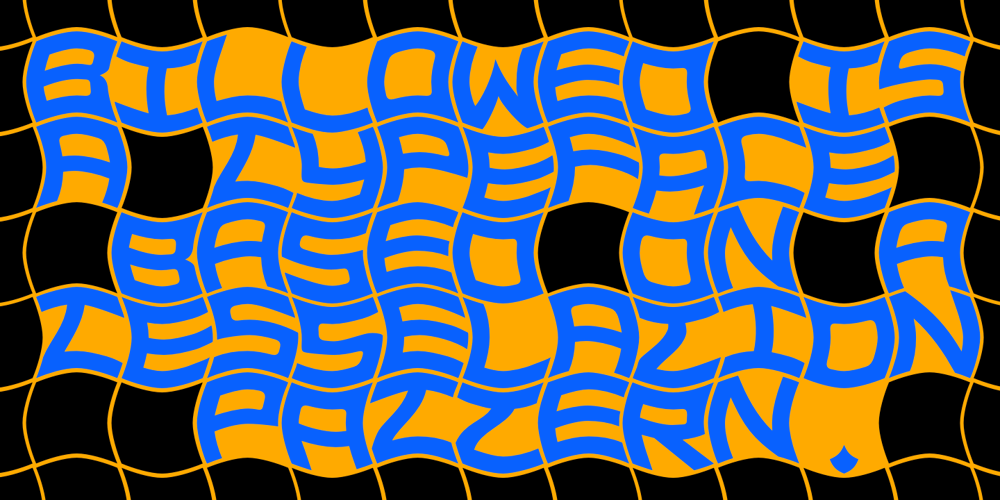
Billowed Font Family was designed by Robert Schenk and published by Ingrimayne Type. Billowed contains 4 styles and family package options. Billowed is a typeface family inspired by a simple shape that tessellates in three different ways: in a single orientation, in two orientations, and in four orientations. The shape resembles a billowing sail, with two concave edges that are adjacent and two convex edges, also adjacent. Forcing letters into this template shape results in some oddly shaped letters, but the result should not be judged by individual letters but by how the words and strings of words appear.Billowed was designed as an alternating-letter font in which two sets of characters alternate. The alternating is done automatically in applications that support the OpenType feature contextual alternatives (calt). To get the ripple pattern not just horizontally but also vertically, lines should alternate between the right and left styles and leading set to the same value as the font size. Billowed is monospaced with tight letter spacing to accentuate the ripple pattern. The family includes outline styles that can be used in a layer above the solid style to add color. Undulate was not designed for any particular use but as a challenge to fit letters into a particular geometric shape. The unusual patterns that result are eye-catching and may be useful for advertising or signage and in other places where one wants attention-grabbing lettering.